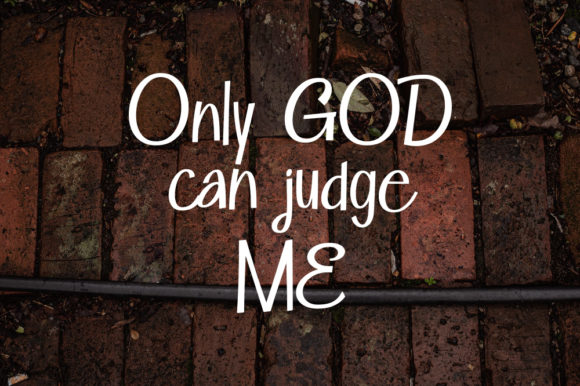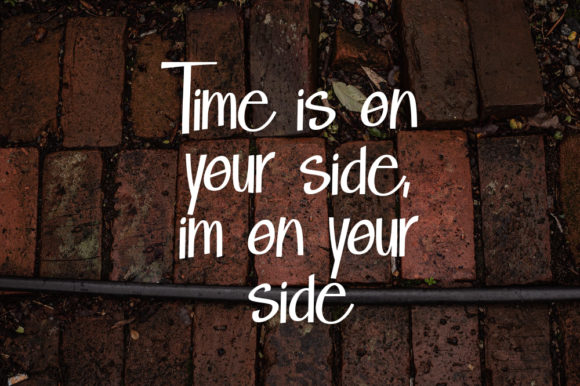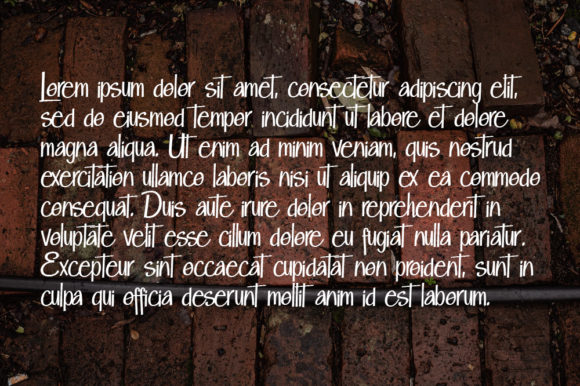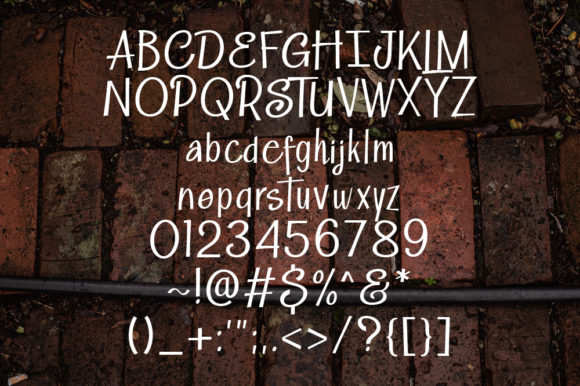
Introduction to Lattek Font
Lattek is a distinct, elegant script that blends traditional influences into a contemporary aesthetic.
Its well balanced Latin details contain distinctive contrasts Use Lattek to achieve an exquisite, yet subtle look and maximum versatility.